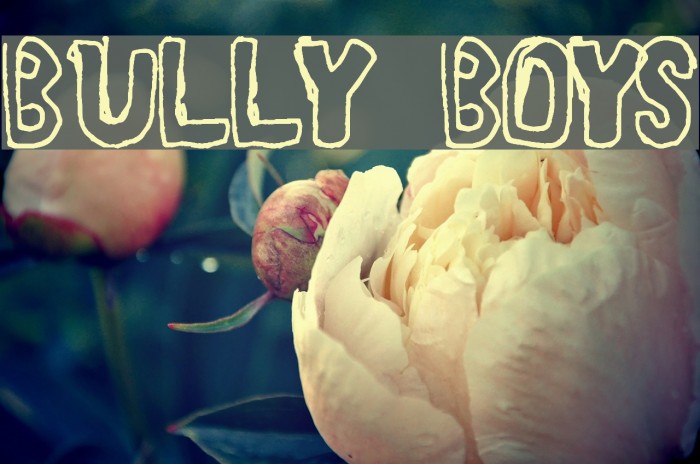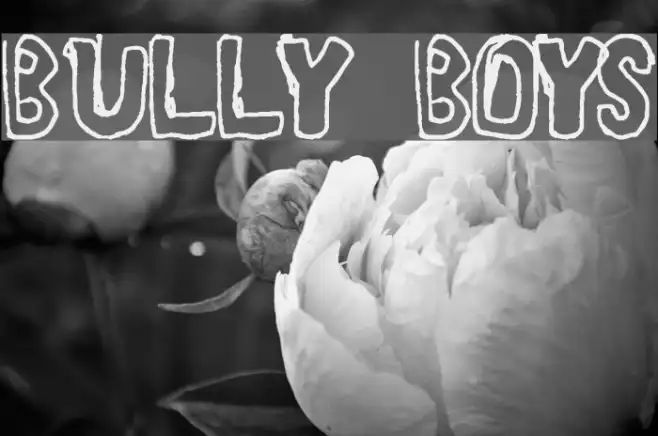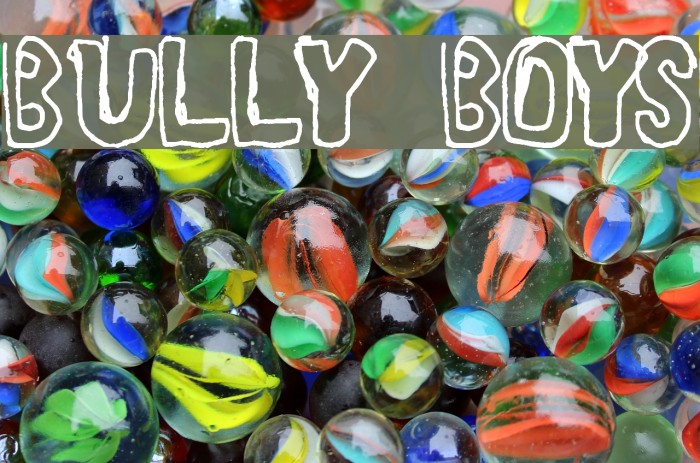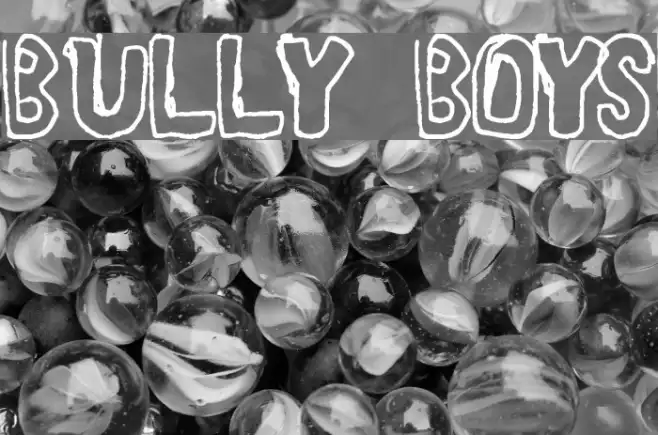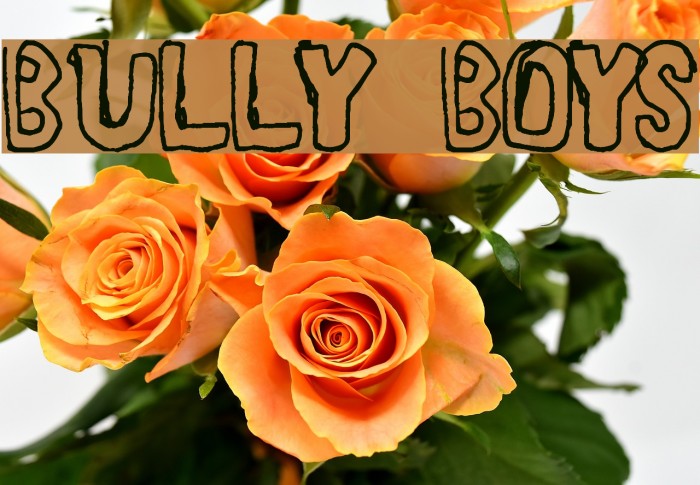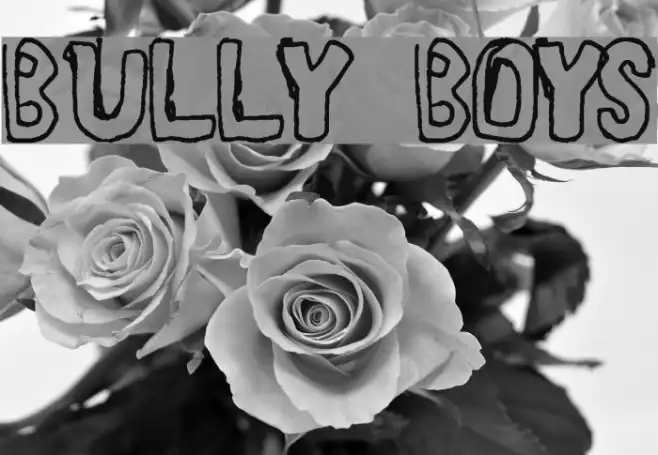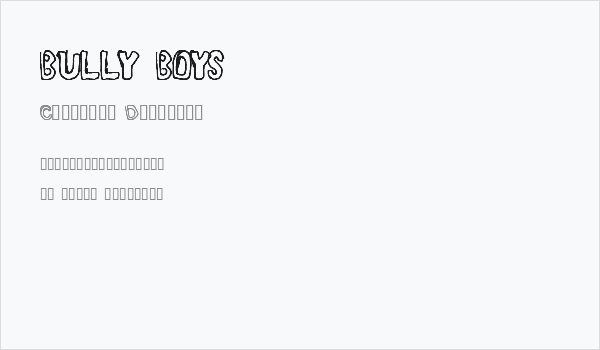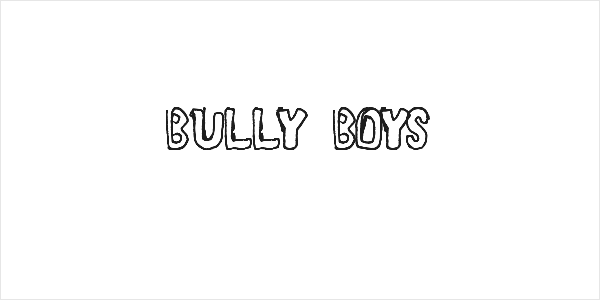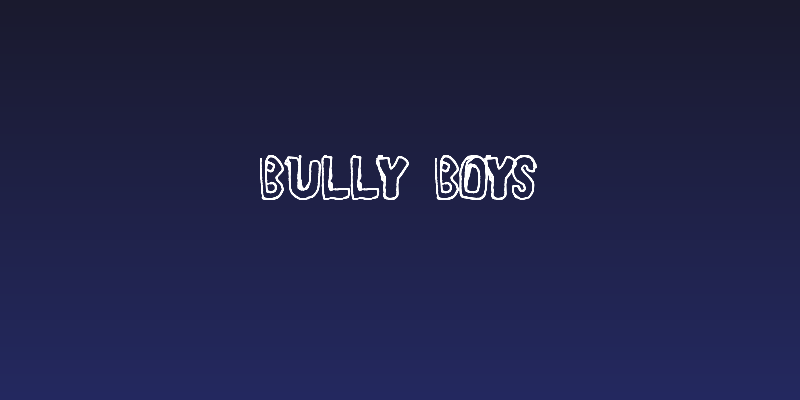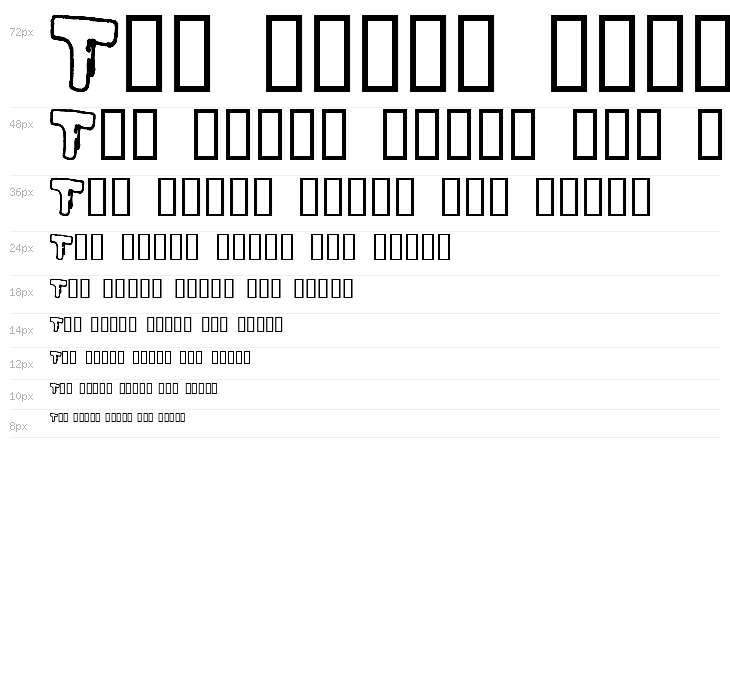
BULLY BOYS Font
BULLY BOYS Description
This font features a bold and playful style with a hand-drawn appearance. The letters are uppercase and exhibit a slightly irregular, cartoonish outline that adds a sense of whimsy and fun. Each character has a unique, organic shape, giving the font a lively and dynamic feel. The strokes are thick and uneven, contributing to a casual, informal aesthetic. The overall design is reminiscent of doodles or graffiti, making it suitable for creative and youthful projects.
| Overall Style | Playful, Whimsical, Creative |
| Proposed Projects | Ideal for children's books, comic strips, playful branding, and creative posters. |